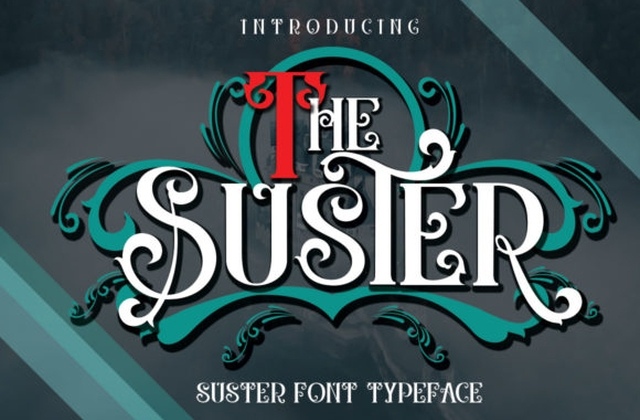
The Suster Font
The Suster Font is perfect for spiritual retreat branding, meditation center signage, religious organization materials, contemplative book publishing, sacred space design, holistic healing practice logos, monastery gift shops, and peaceful sanctuary promotions. This serene typeface excels in applications where spiritual tranquility and sacred reverence are essential for creating meaningful and contemplative brand experiences that inspire inner peace.
What makes The Suster Font truly exciting is its profound embodiment of spiritual serenity and sacred devotion that captures the essence of monastic life and contemplative practice. The font features gentle, harmonious letterforms with flowing curves and peaceful proportions that mirror the quiet rhythm of prayer and meditation. Its tranquil personality and sacred character create an immediate sense of peace and spiritual connection that resonates with audiences seeking authentic spiritual experiences and inner transformation. The typeface's devotional quality and contemplative appeal make it perfect for brands wanting to convey spirituality, wisdom, and connection to ancient traditions of faith and contemplative practice.
The The Suster Font family includes regular and decorative versions, complemented by sacred alternates and spiritually-inspired ornamental elements. The font offers comprehensive character sets with religious symbols, contemplative ligatures, and sacred styling details that enhance its spiritual aesthetic. Additional graphic elements including crosses, lotus flowers, prayer motifs, and sacred geometry provide designers with complete branding tools rooted in spiritual traditions and contemplative practices.